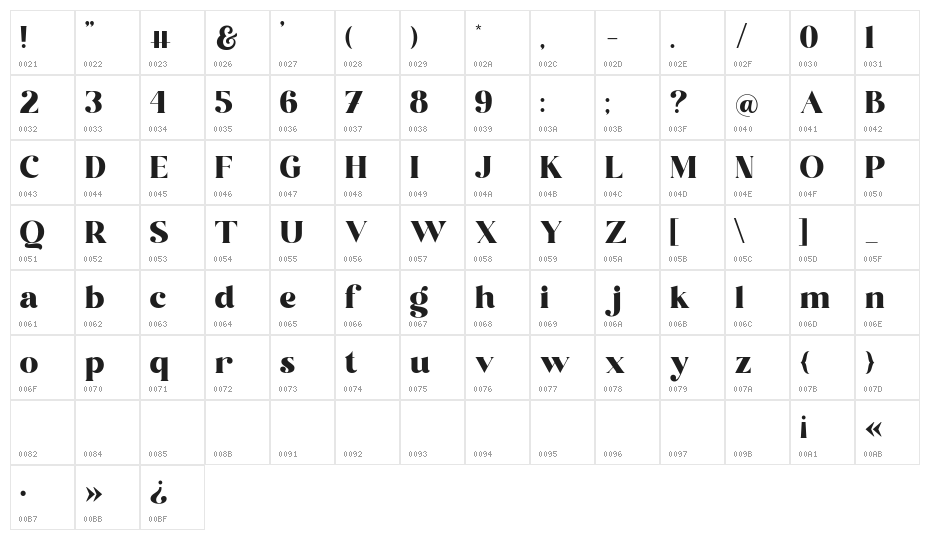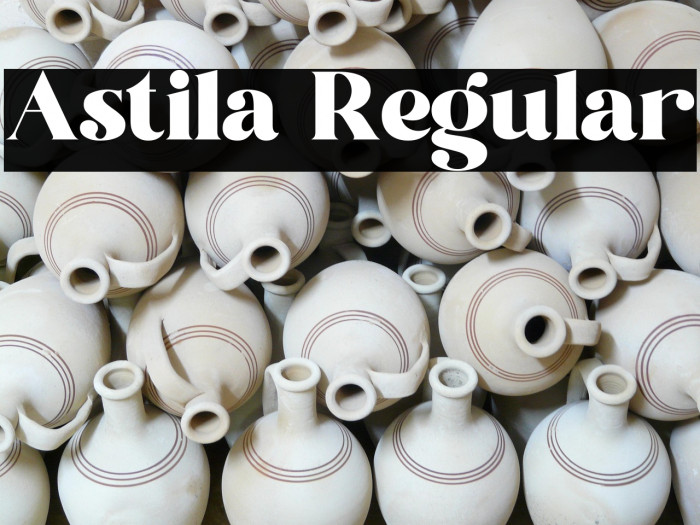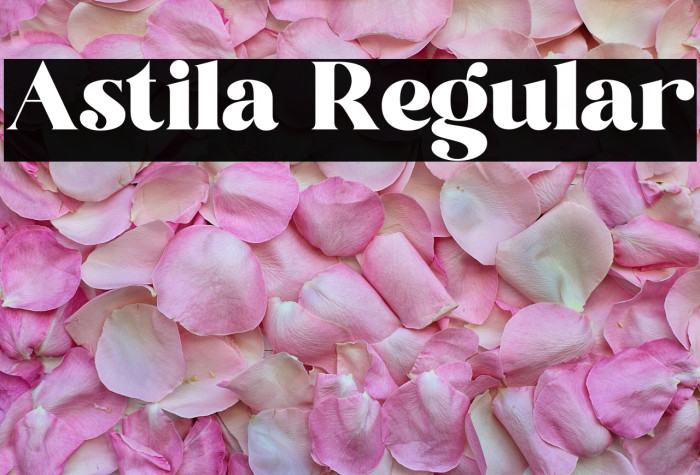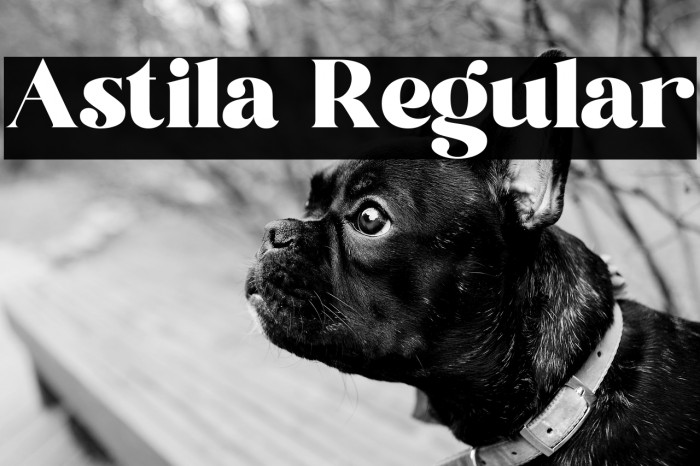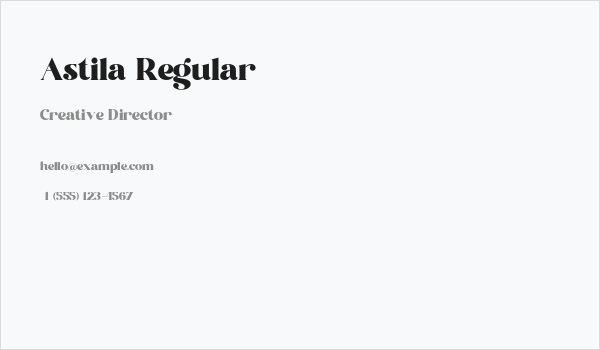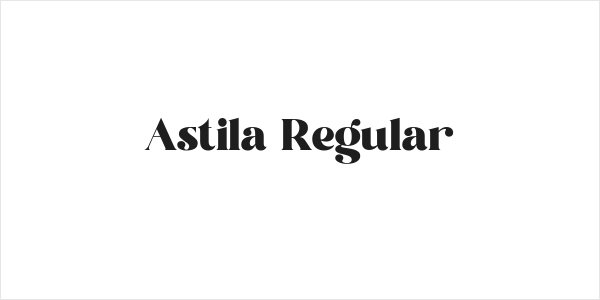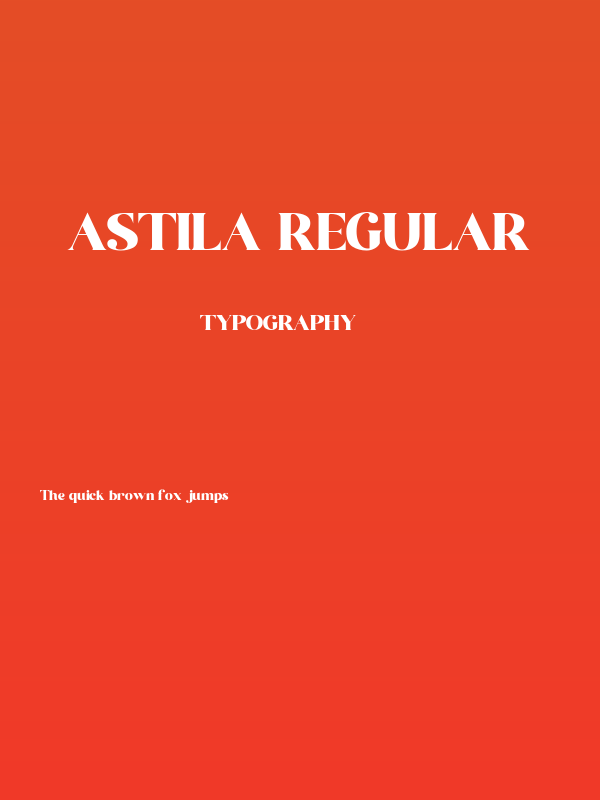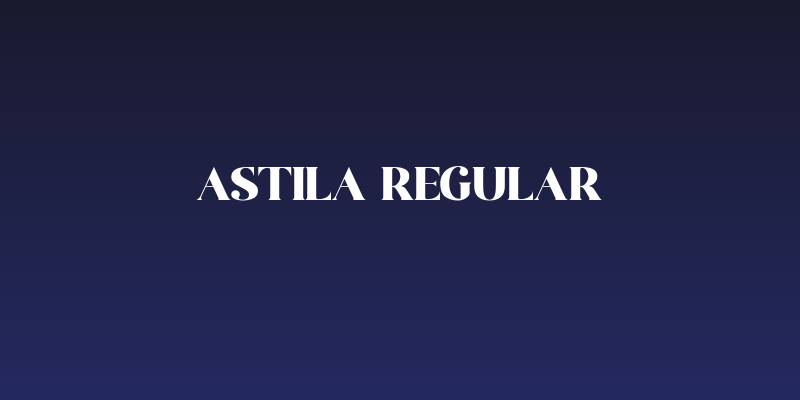
Astila Regular Font
Astila Regular Description
This font features a bold and striking design with high contrast between thick and thin strokes. The uppercase letters are particularly dramatic, with sharp serifs and a strong presence. The lowercase letters maintain a consistent style, offering a harmonious blend of elegance and readability. The numerals are equally bold, ensuring they stand out in any context. Special characters are designed with the same attention to detail, making them suitable for a variety of uses. Overall, this font combines traditional serif elements with a modern twist, making it versatile for both classic and contemporary designs.
| Use Case | Headlines, Logos, Editorial design |
| Proposed Projects | Ideal for branding, editorial design, headlines, and luxury packaging. |